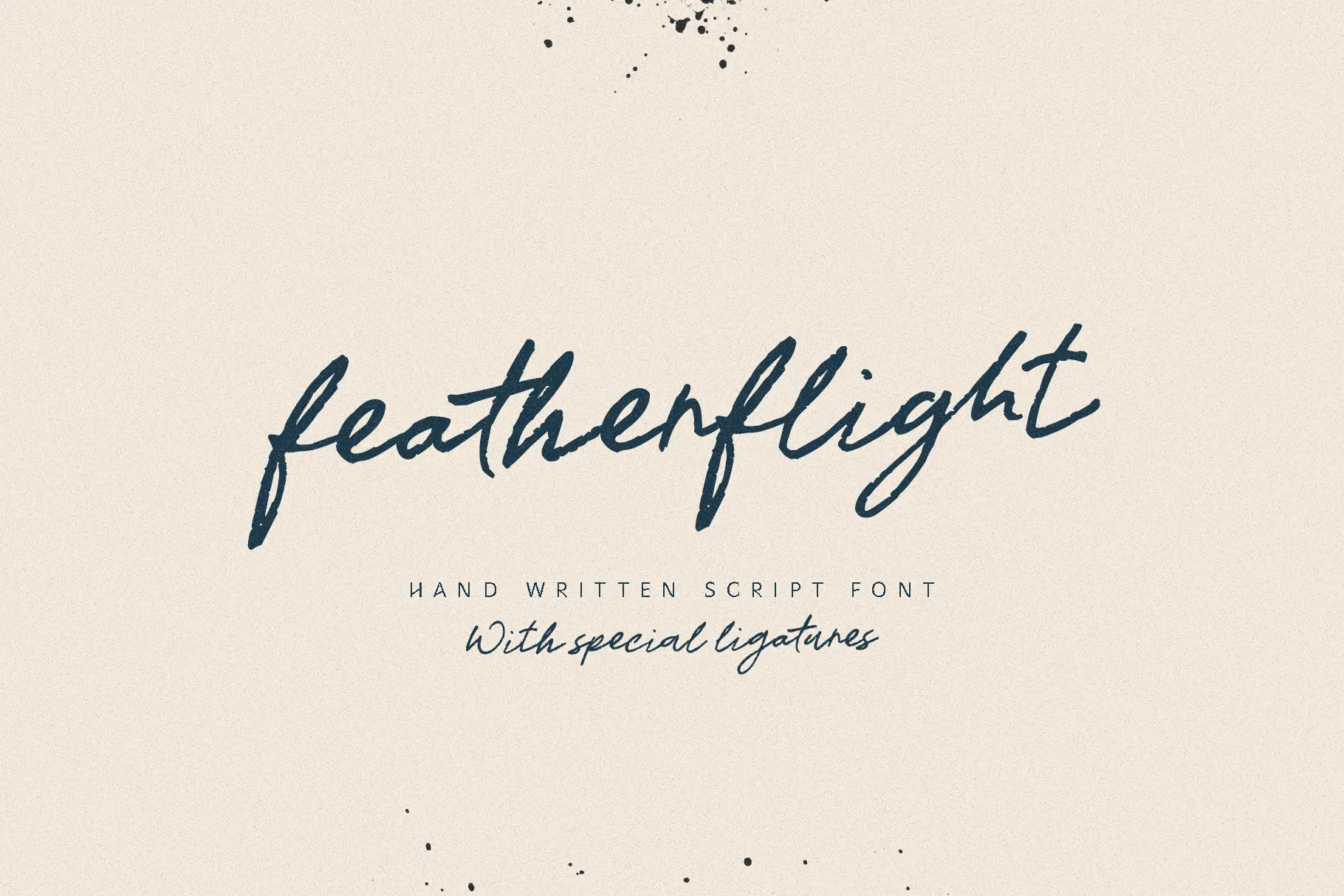
Featherflight Script Font By Creativeqube
Introducing the Featherflight Script Font by Creativeqube, a beautifully crafted typeface that brings elegance and fluidity to your projects. This font features a unique script style, perfect for adding a personal touch to your designs.
• Stylish script design with graceful curves
• Multiple weights for versatile usage
• Extensive character set for multilingual support
• OpenType features for enhanced typographic control
• Ideal for branding, logos, and invitations
• Perfect for print materials such as posters and flyers
• Great for digital projects including websites and social media graphics